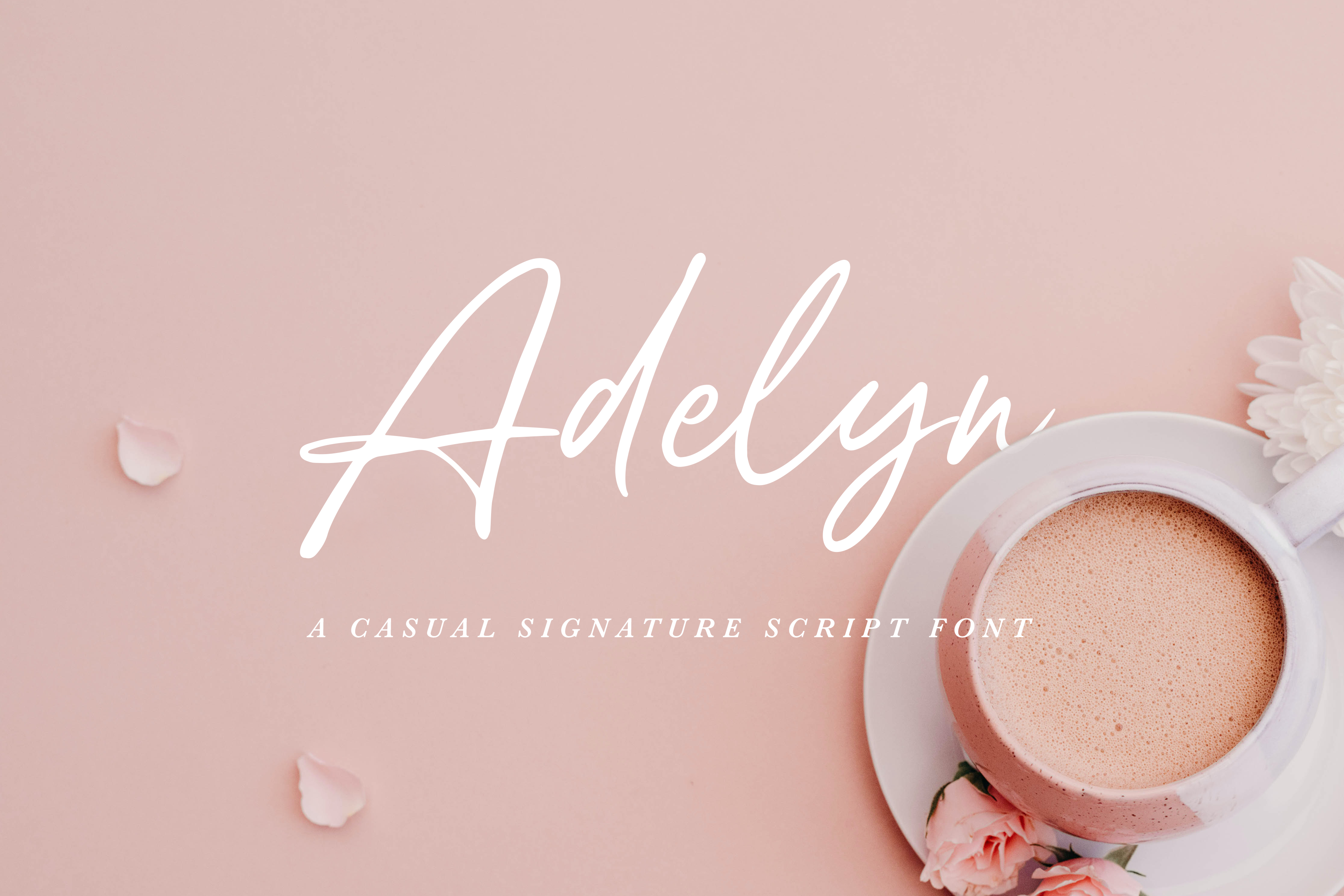
Adelyn Script Font
Introducing Adelyn, a casual signature script font that's suitable for signature-style logos, branding, product packaging, social media quotes and graphics, wedding invitations, and more. Its gender-neutrality make it versatile for just about anything.
Features organic ligatures which provide a handwritten quality, and a complete set of alternate uppercase and lowercase characters, numerals, punctuation and multilingual support (see languages below in FAQ).